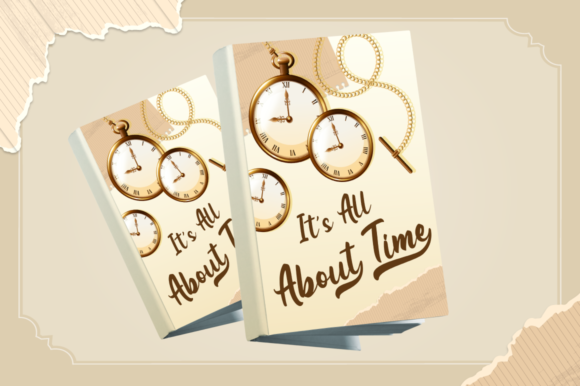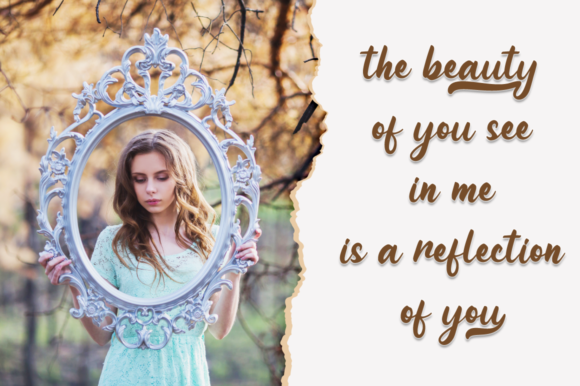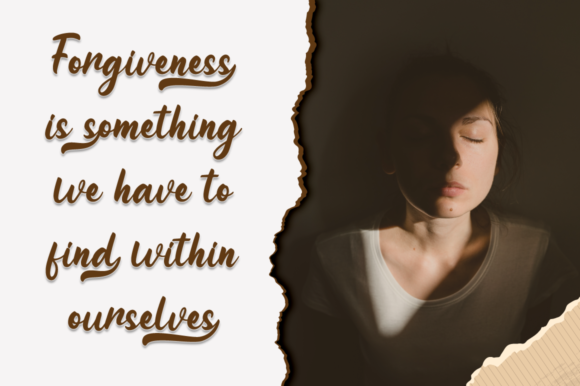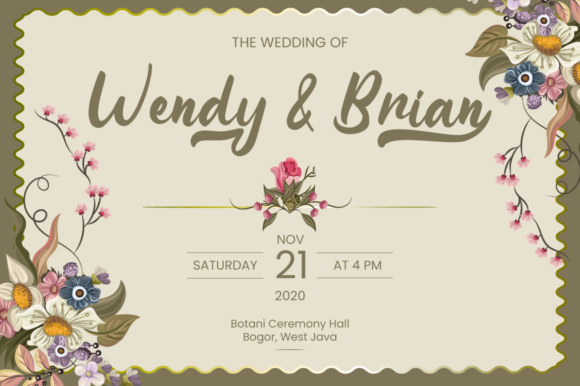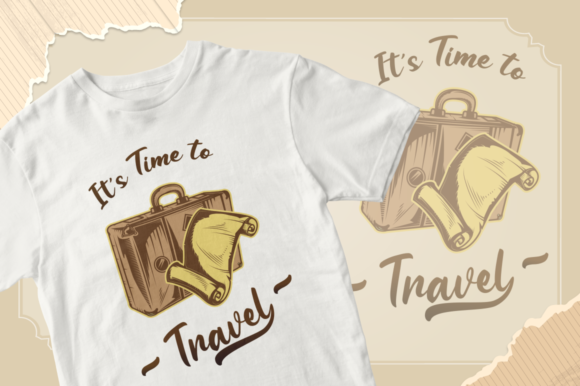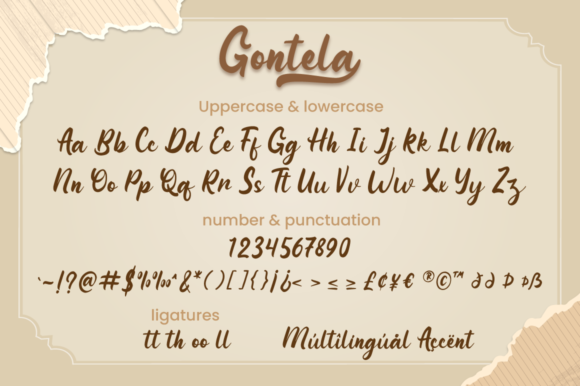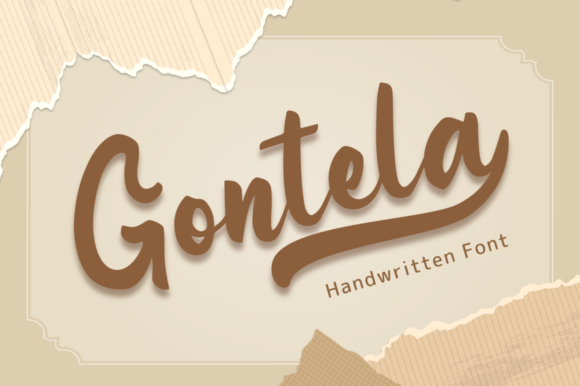
Gontela Font: Elevate Your Designs with a Stylish and Confident Handwritten Font
Are you tired of using the same old fonts for your design projects? Do you want to add a touch of elegance and sophistication to your headlines and logotypes? Look no further than the Gontela Font, a gorgeous and daring handwritten font that’s sure to take your designs to the next level.
What is Gontela Font?
Gontela is a carefully crafted handwritten font that’s designed to give your designs a stylish and confident look. With its strong and dynamic characters, this font is perfect for headlines, logotypes, and any other design project where you want to make a statement.
Key Features of Gontela Font
• Handwritten with love: Gontela is a genuine handwritten font, crafted with love and care to give your designs a personal touch.
• Strong and confident: This font reads as strong, confident, and dynamic, making it perfect for headlines and logotypes.
• Nostalgic character: Gontela has a unique nostalgic character that will add a touch of warmth and personality to your designs.
• Versatile: This font is versatile and can be used for a wide range of design projects, from branding and advertising to packaging and more.
Why Choose Gontela Font?
There are many fonts available for designers, but Gontela stands out from the crowd. Here are just a few reasons why you should choose Gontela for your next design project:
• Unique and eye-catching: Gontela is a one-of-a-kind font that’s sure to grab attention and make your designs stand out.
• Elegant and sophisticated: This font has an elegant and sophisticated feel that’s perfect for high-end brands and luxury designs.
• Easy to read: Despite its bold and daring nature, Gontela is easy to read and understand, making it perfect for use in headlines and logotypes.
How to Use Gontela Font
Using Gontela Font is easy. Here are just a few tips to get you started:
• Headlines and logotypes: Use Gontela for headlines and logotypes to add a touch of elegance and sophistication to your designs.
• Branding and advertising: This font is perfect for branding and advertising projects where you want to make a bold statement.
• Packaging and more: Gontela can also be used for packaging, posters, and other design projects where you want to add a touch of personality.
Tips for Pairing Gontela Font with Other Fonts
Pairing Gontela with other fonts can be a great way to add some contrast and interest to your designs. Here are a few tips for pairing Gontela with other fonts:
• Pair with a sans-serif font: Pairing Gontela with a sans-serif font like Arial or Helvetica can create a nice contrast and add some visual interest to your designs.
• Pair with a script font: Pairing Gontela with another script font can create a beautiful and elegant look that’s perfect for luxury brands.
In conclusion, Gontela Font is a gorgeous and daring handwritten font that’s perfect for designers who want to add a touch of elegance and sophistication to their designs. With its strong and confident characters, nostalgic character, and versatility, Gontela is a great choice for a wide range of design projects. So why not give it a try and see how it can elevate your designs?